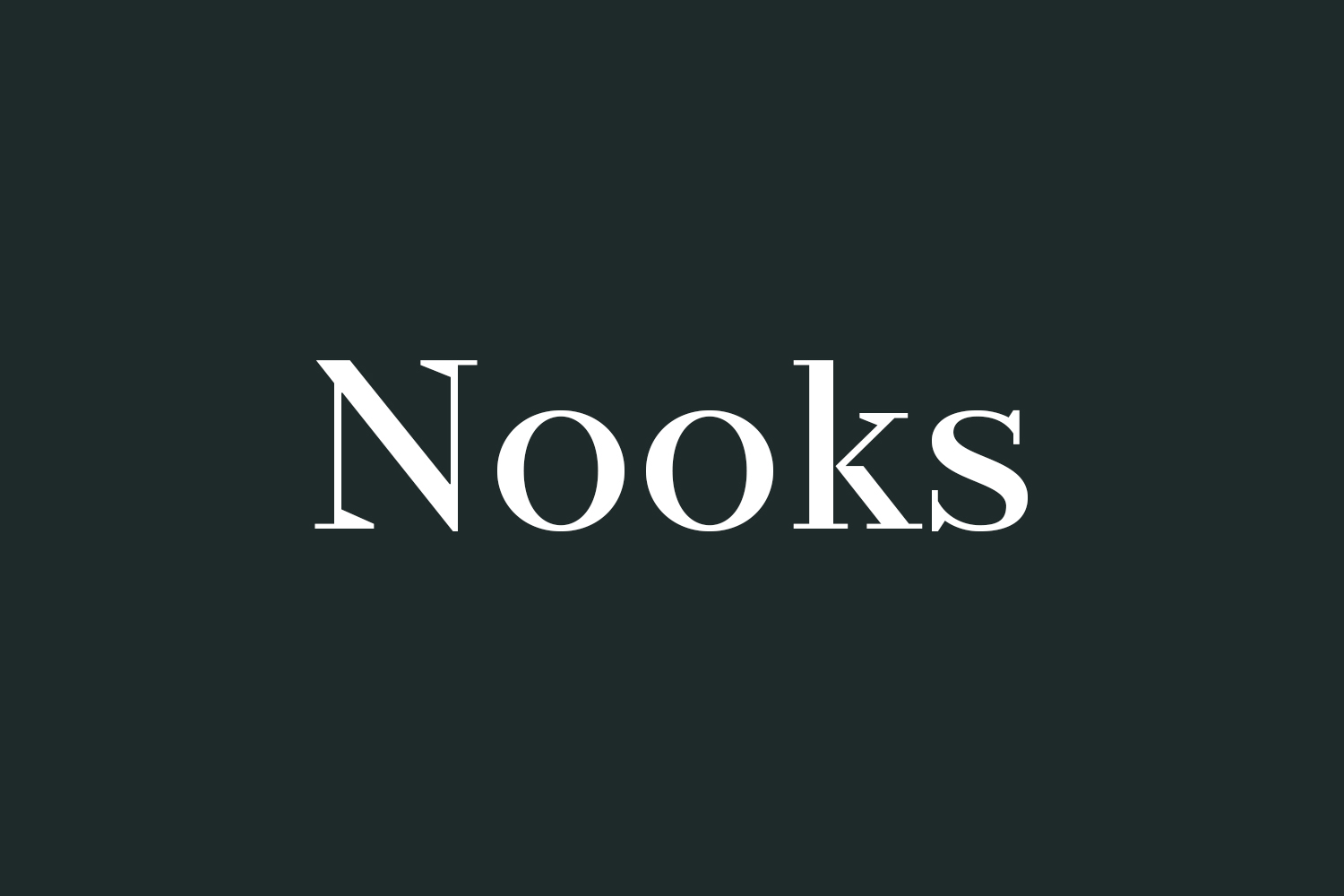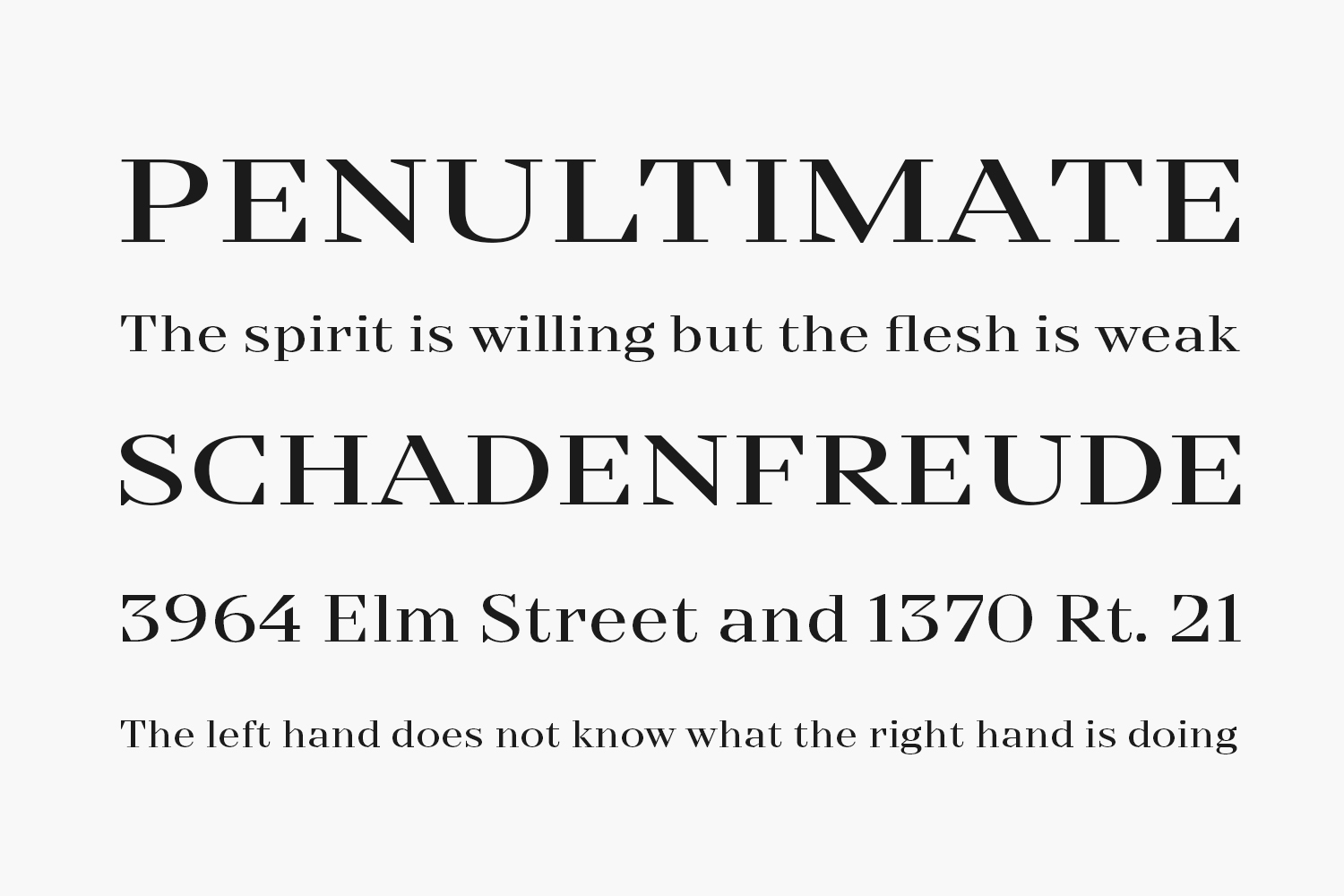
Nooks Free Font Family is a typeface that exudes both elegance and modernity, making it the perfect choice for designers who want to add a touch of sophistication to their projects. The sharp, clean lines of the serifs are beautifully balanced by the smooth curves of the letterforms, creating a harmonious and timeless look. This font is versatile enough to be used in a variety of settings, from high-end editorial layouts to minimalist web designs. Whether you’re looking to convey a sense of tradition or a contemporary edge, Serif Nooks Free Font has got you covered. Its refined character and polished appearance will elevate any piece of text, making it a true gem among the sea of typefaces.
Designed by TypeType Foundry